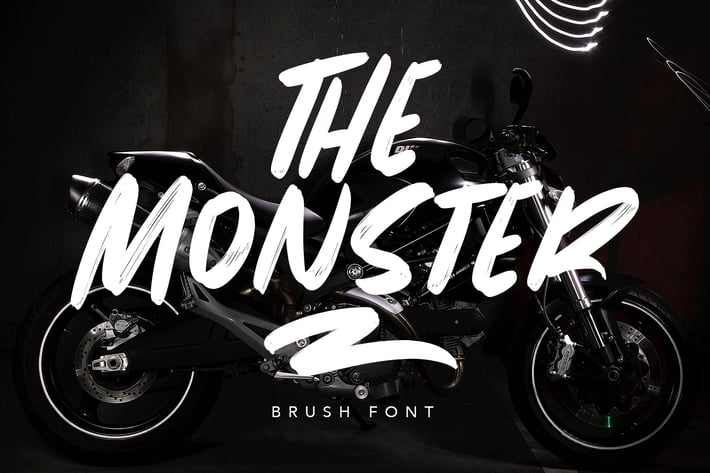
The Monster Brush Font
Give your designs an authentic brush handcrafted feel. The Monster is perfectly suited to signature, stationery, logo, typography quotes, magazine or book cover, website header, flyer, clothing, branding, packaging design and more.